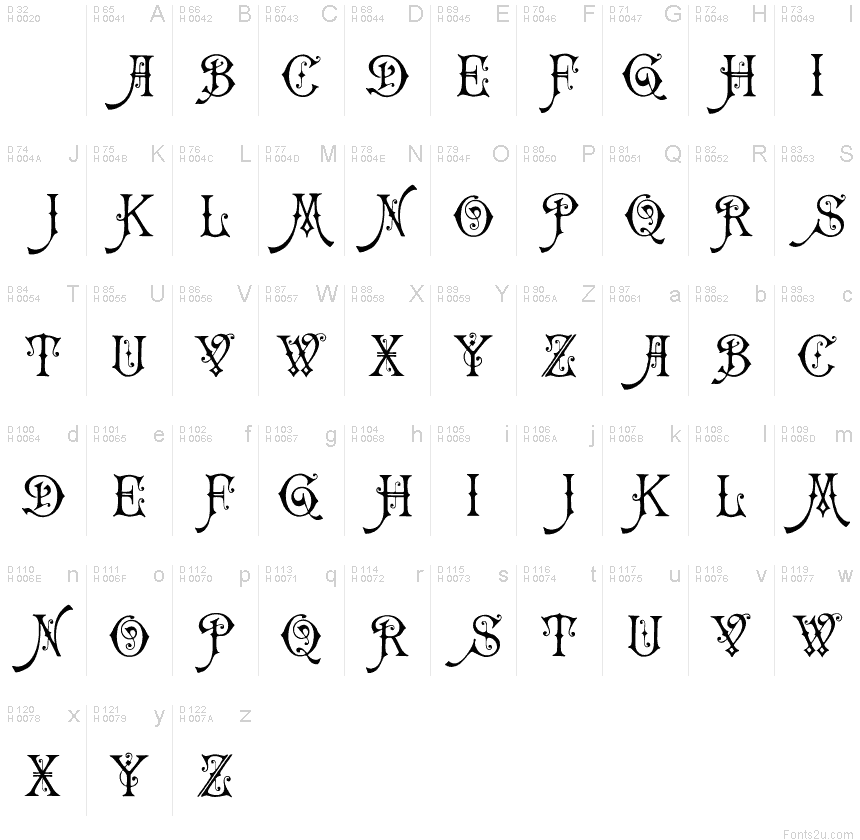
Carmencita
Carmencita font by Listemageren is a free gothic initials typeface that looks like it was pulled from an illuminated storybook. Each letter is tall and slender, with inky curls, tiny teardrop ornaments, and arched strokes that feel both theatrical and slightly mysterious. The texture is ornate without being messy, giving you dramatic capital letters that instantly frame a word as special.
This free font shines on fantasy book covers, gothic or cabaret posters, dark romantic wedding invitations, chapter initials, labels for candles or apothecary-style packaging, and boutique logos. Using Carmencita for short titles or monograms and pairing it with a very plain sans serif at smaller sizes keeps the mood rich but readable.